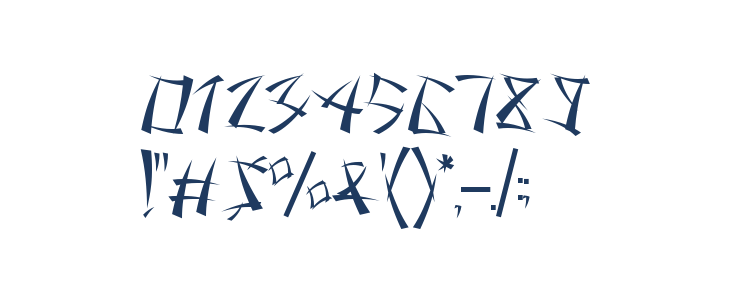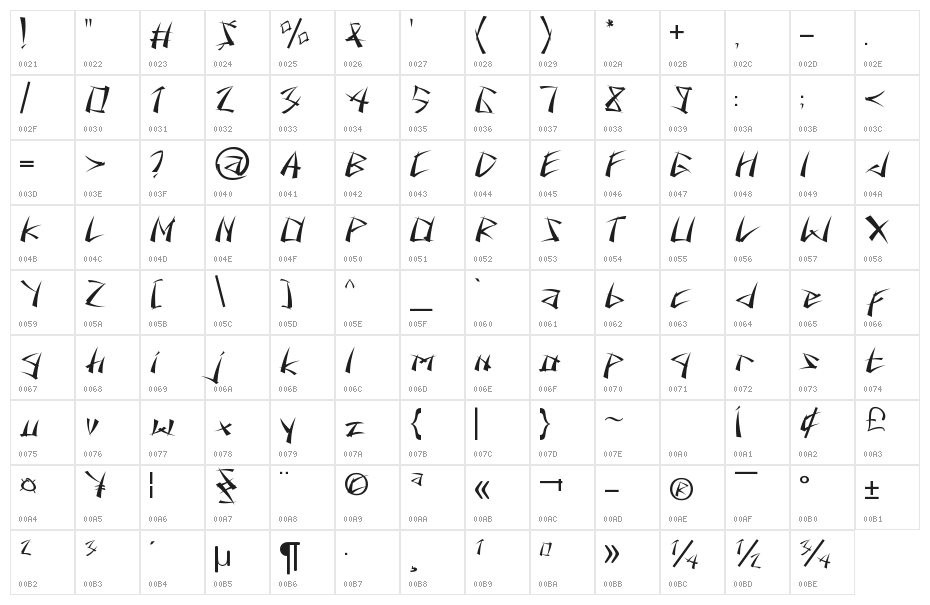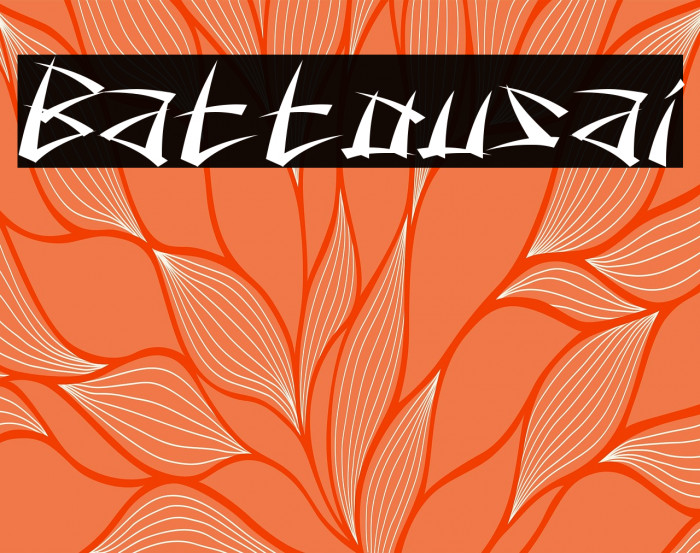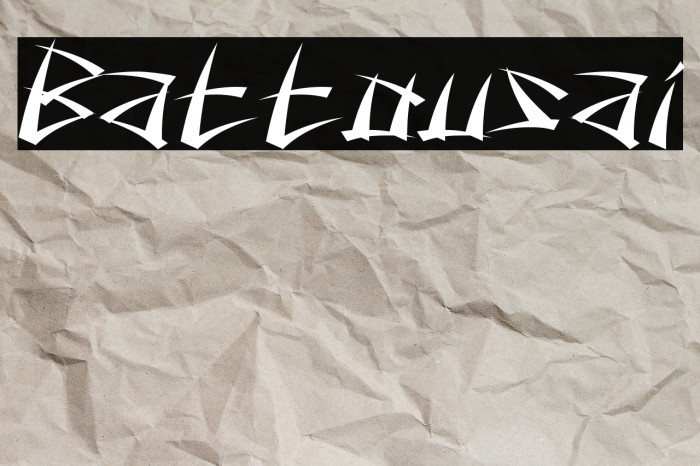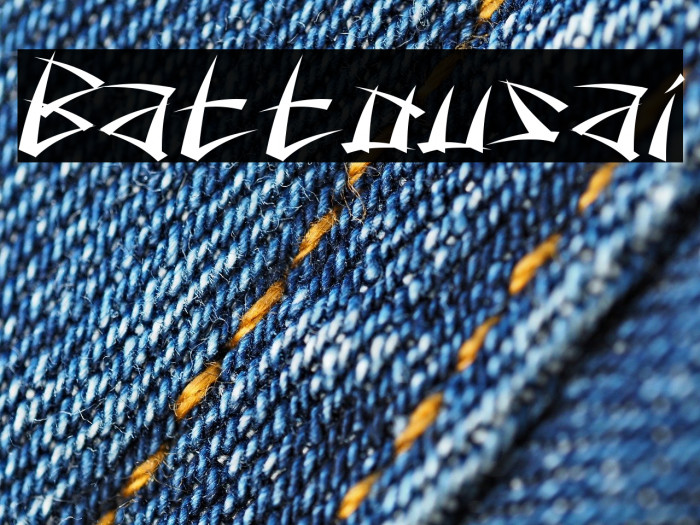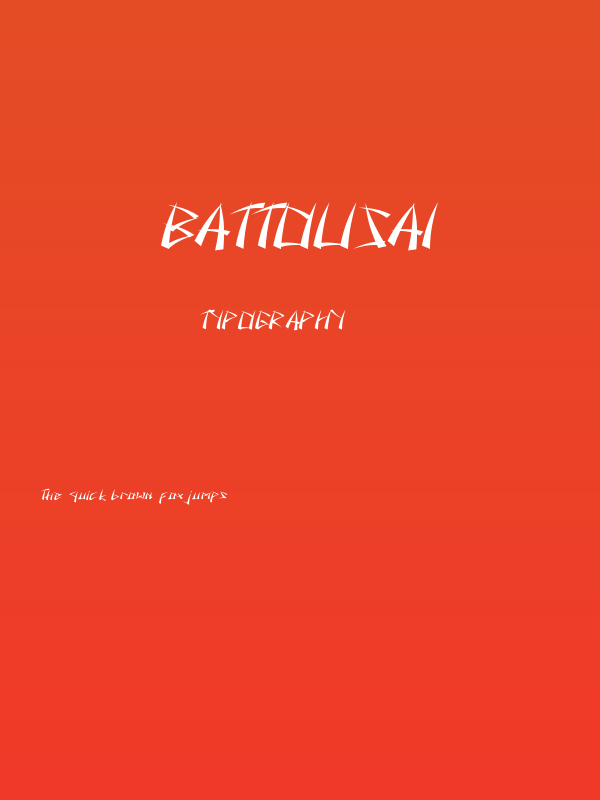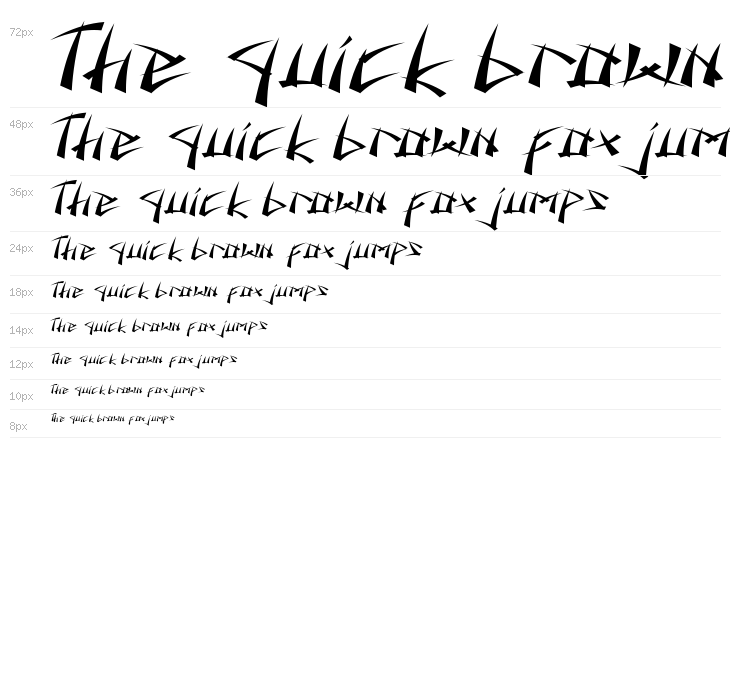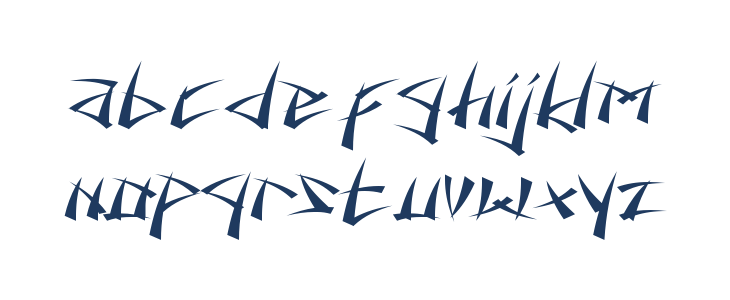
Battousai Font
Battousai Description
This font features a sharp, angular design with a dynamic and aggressive appearance. The characters are crafted with bold strokes and pointed edges, giving it a distinct, edgy look. The uppercase and lowercase letters maintain a consistent style, with exaggerated angles and a sense of motion. Numbers and special characters follow the same design principles, ensuring uniformity across all glyphs. The overall aesthetic is reminiscent of graffiti or street art, making it suitable for projects that require a bold and unconventional typeface.
| Proposed Projects | Ideal for use in graphic novels, video game titles, movie posters, and urban-themed designs. |